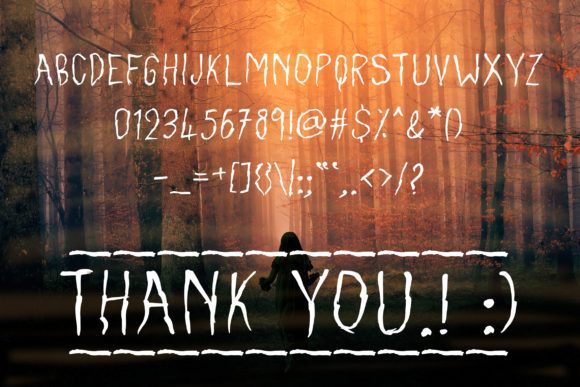
Introduction to Lost in the Woods Font
Have you ever found yourself lost in the woods of creative uncertainty, searching for the perfect design element to bring your project to life? You’re not alone. As designers, we’ve all been there – staring at a blank canvas, desperate for that one thing that will make our idea truly shine. Well, your search is over. Introducing the Lost in the Woods Font, a game-changing sans serif font that’s as rugged as it is refined.
This free download is more than just a design resource – it’s a high-quality tool that will add a touch of authenticity to any creative project. With its transparent background and unique, hand-carved aesthetic, the Lost in the Woods Font is sure to turn heads and leave a lasting impression.
Key Features of Lost in the Woods Font
- Unique, hand-drawn design for a creative project or design resource
- Includes a range of characters, including uppercase and lowercase letters, numbers, and punctuation
- Perfect for outdoor-themed designs, such as hiking or camping projects
Honest Review: Lost in the Woods Font
- ✨ Unique, hand-drawn feel that adds a personal touch
- ✨ Available in various weights and styles for added versatility
- ✨ Supports transparent background, making it easy to layer over images
- ⚠️ Limited availability of foreign language support, which may be a concern for international projects
- ⚠️ Some characters may not be as smooth or detailed as others
Overall, I’m impressed with the Lost in the Woods Font. It’s a great addition to any design resource library, and its unique feel makes it perfect for creative projects. While it may have some limitations, I believe it’s worth considering for your next design project.
The Lost in the Woods Font is perfect for a variety of creative projects, including posters, social media graphics, presentations, and documents. It’s also a great design resource for creating high-quality graphics and illustrations.
Use Woodland Whimsy Font for projects that require a sense of wonder and magic. Compared to Lost in the Woods Font, Woodland Whimsy Font has a more delicate and ethereal quality, making it perfect for illustrations and designs that need a touch of fantasy.